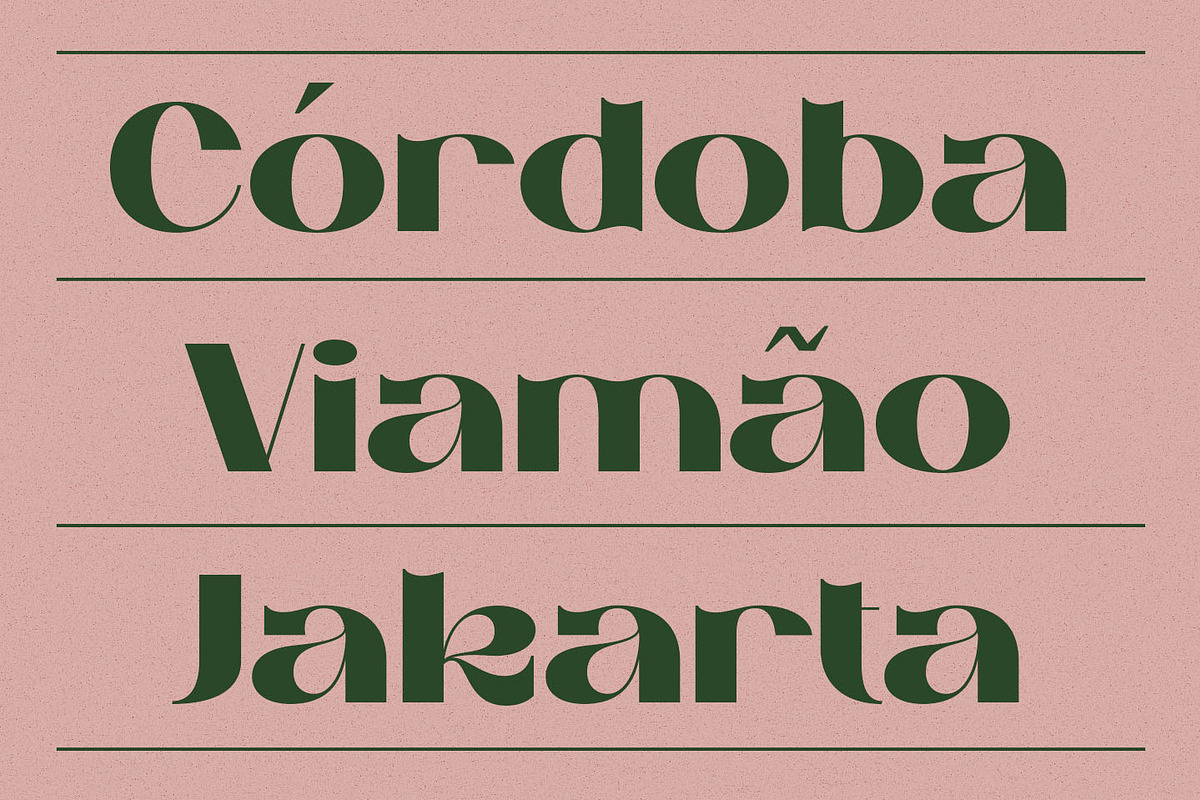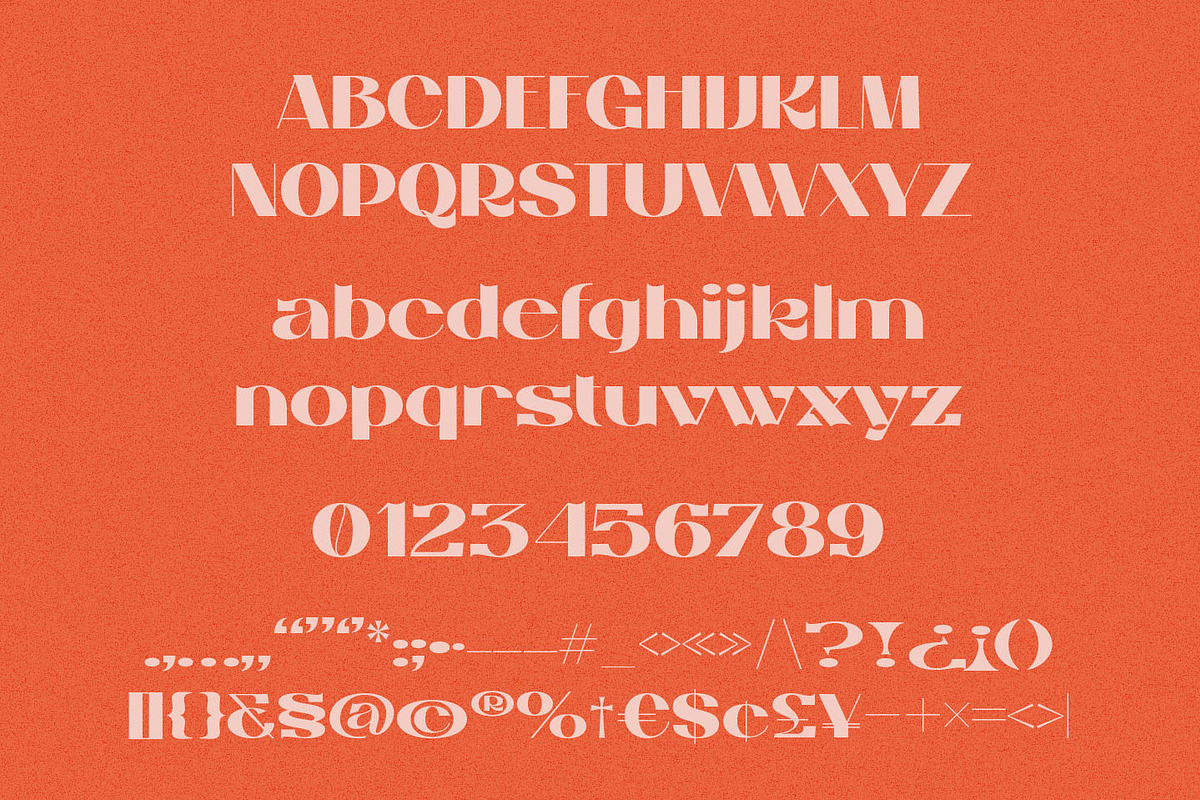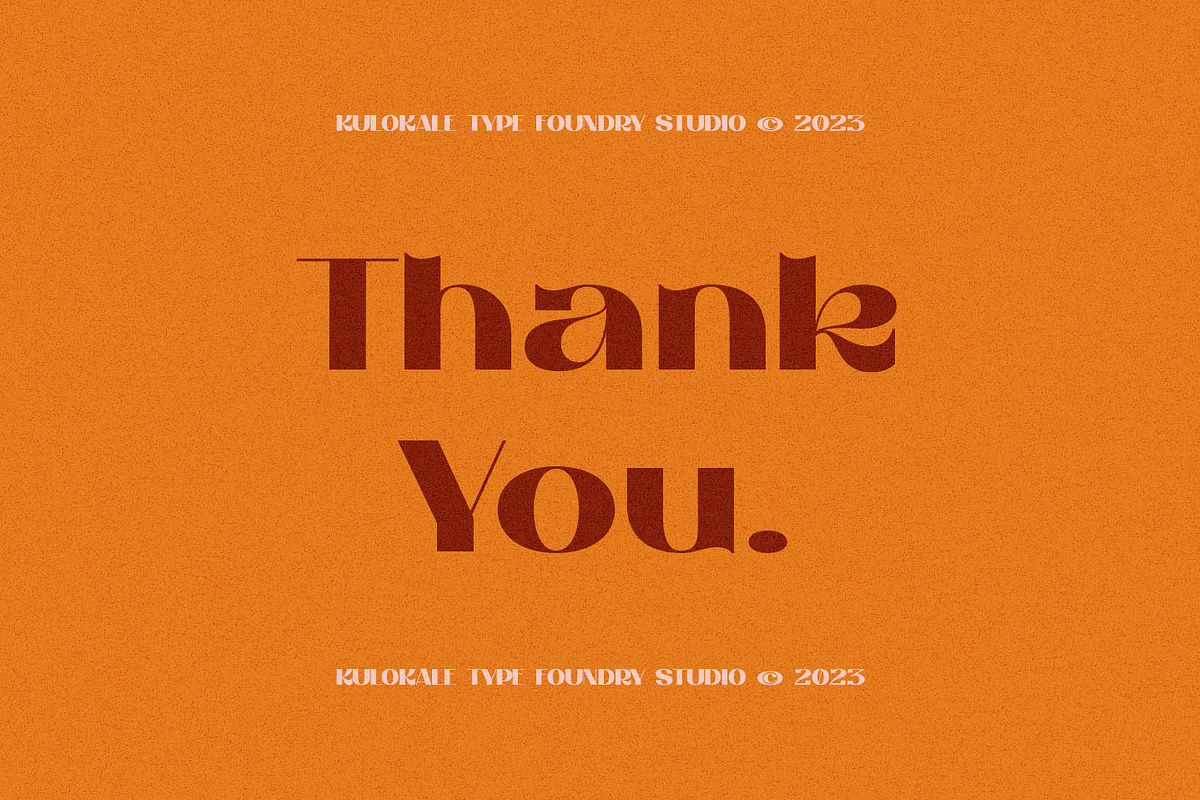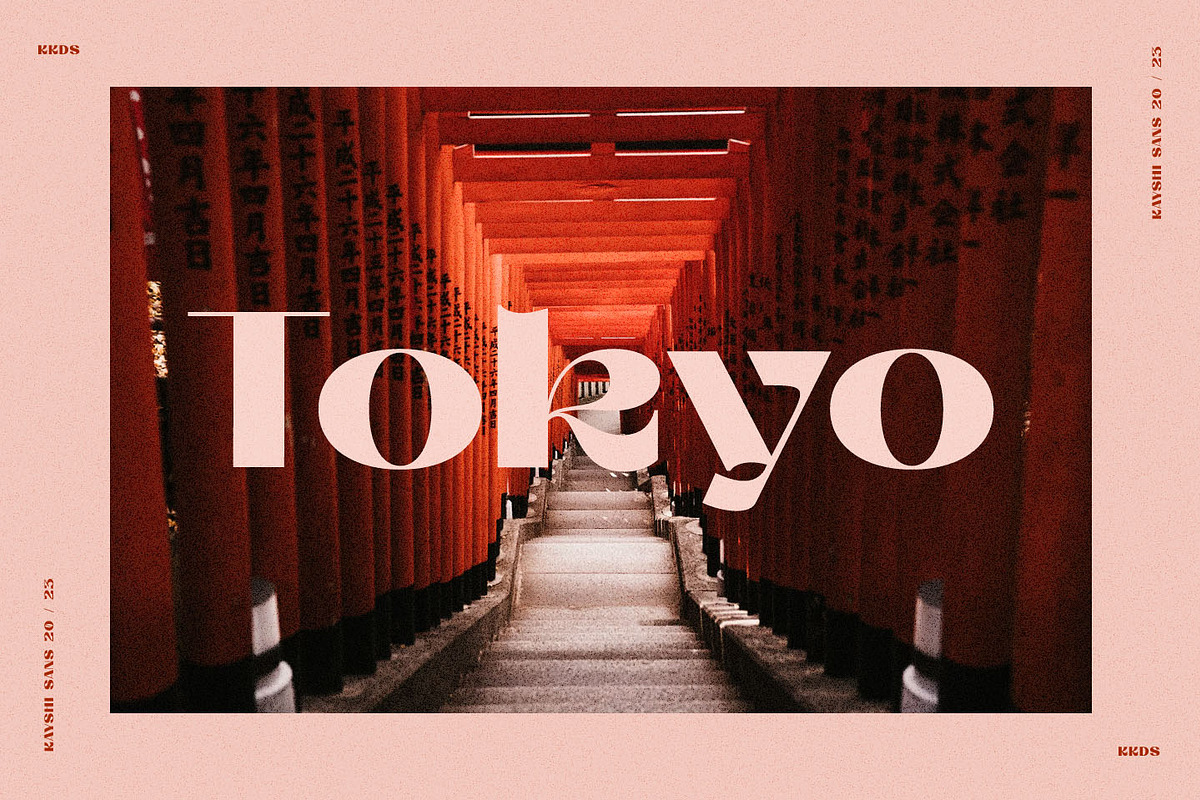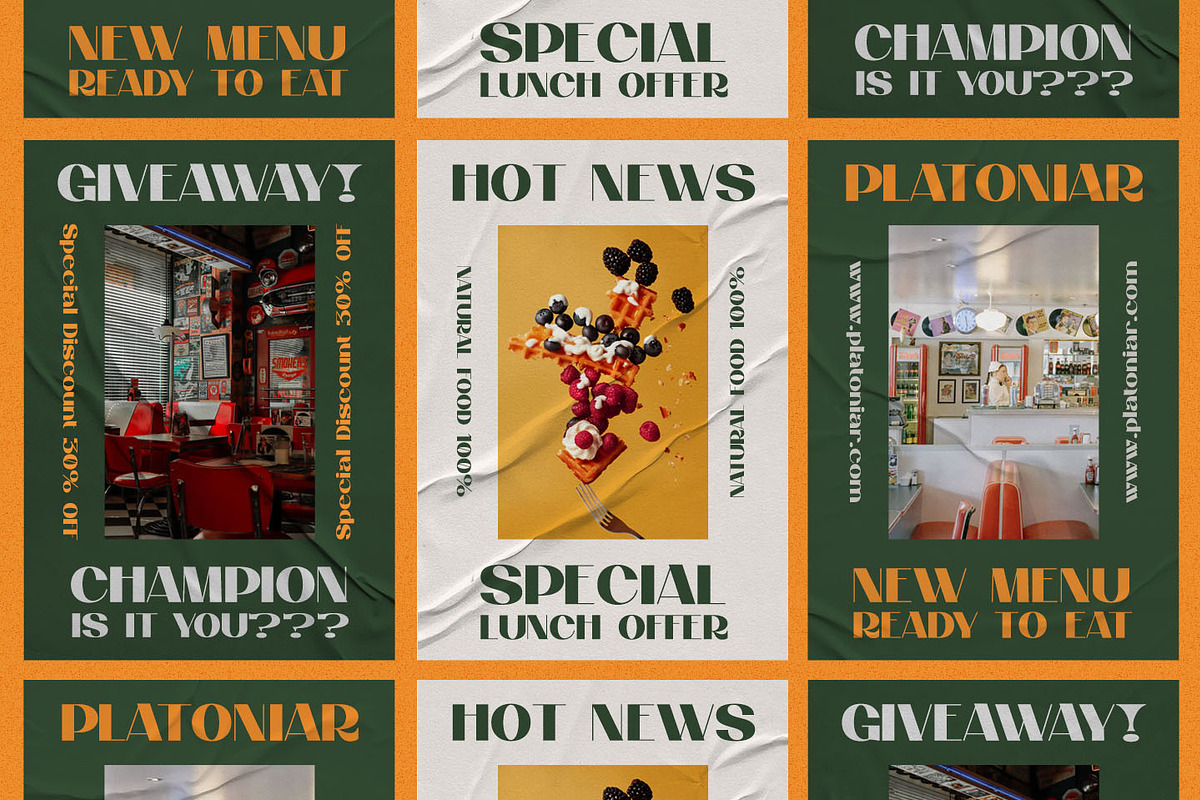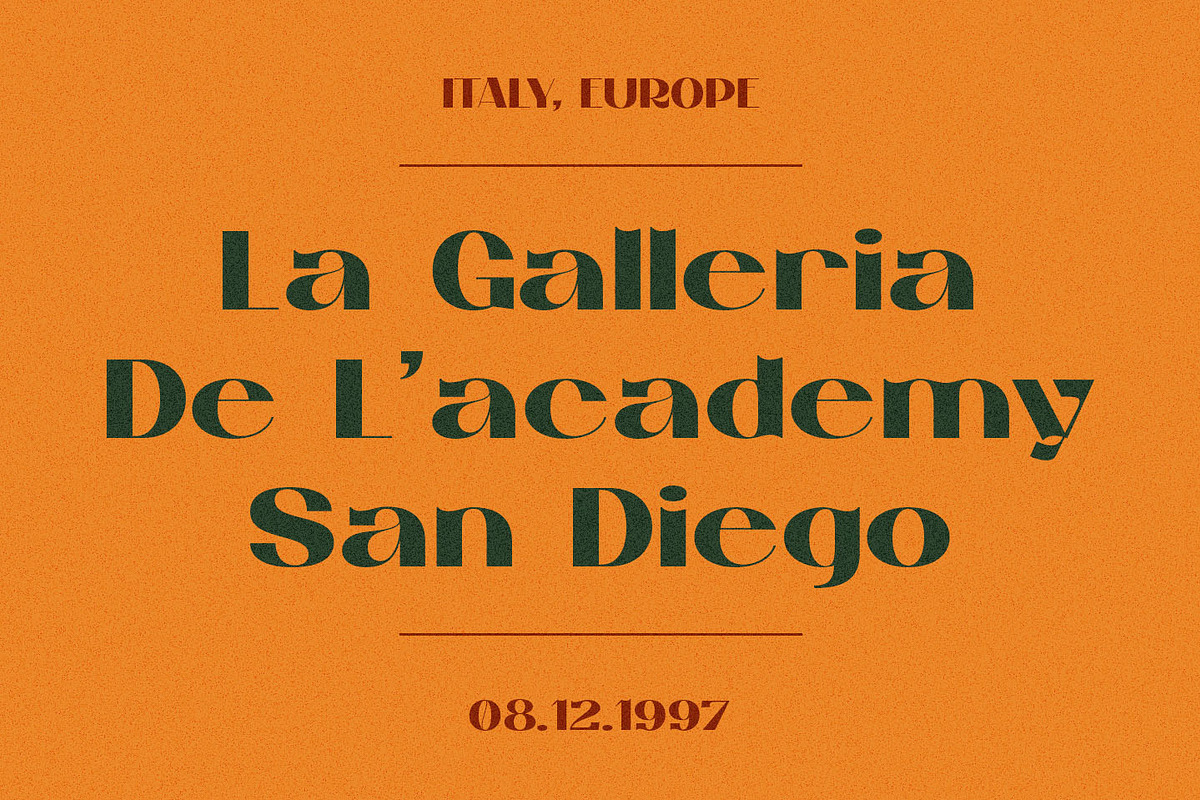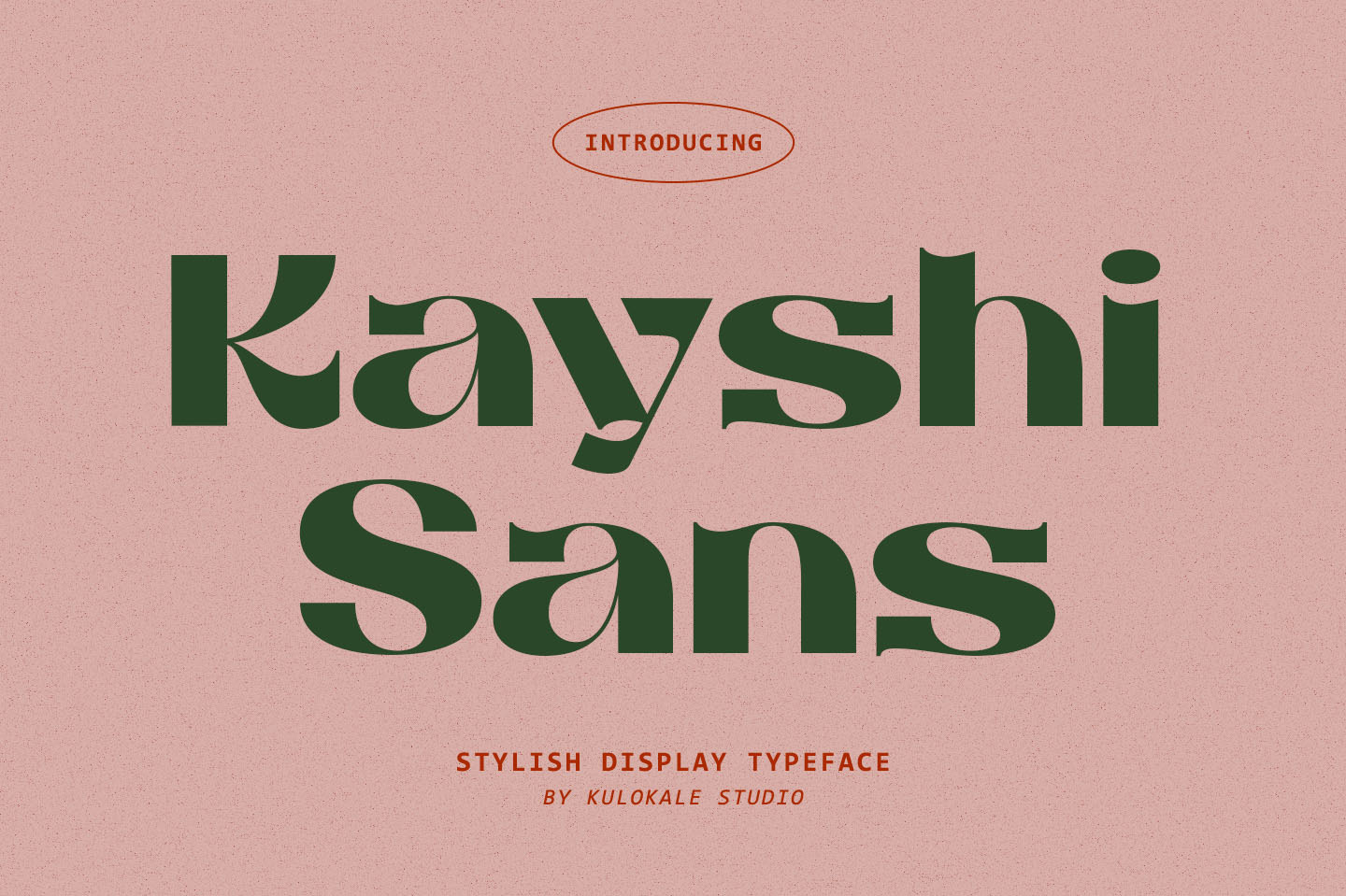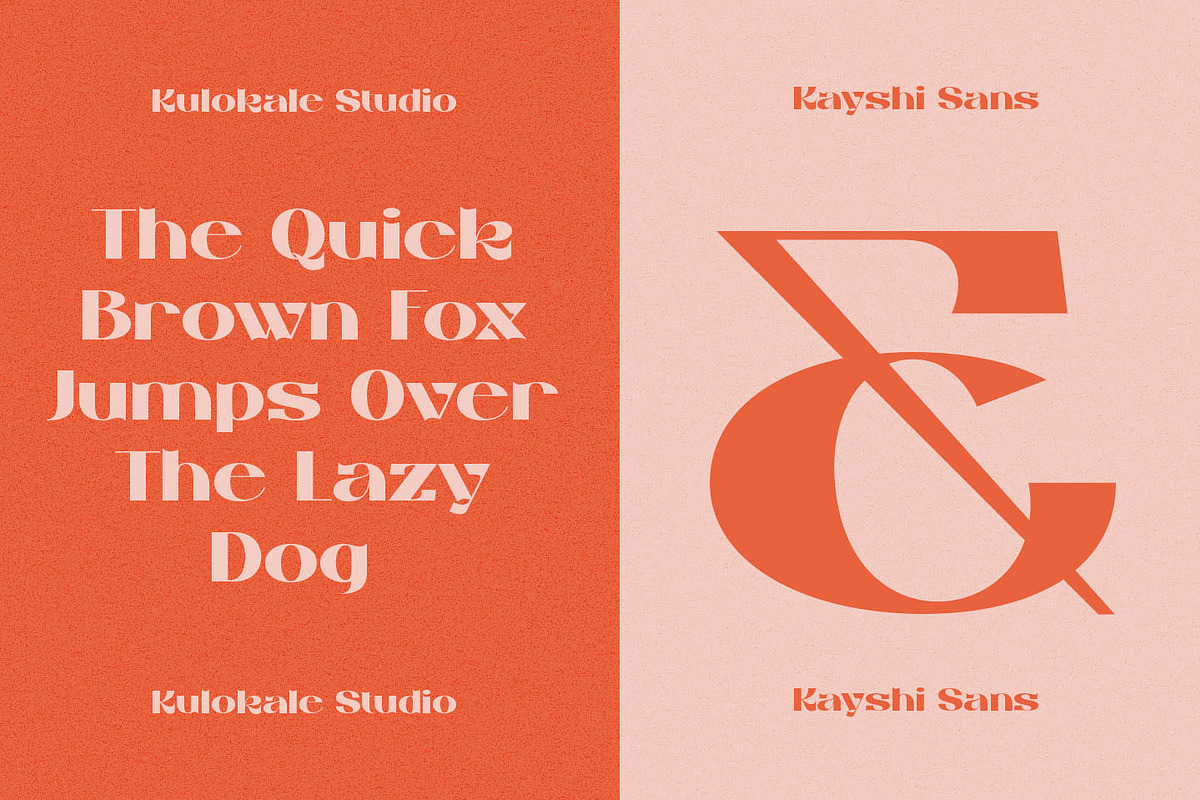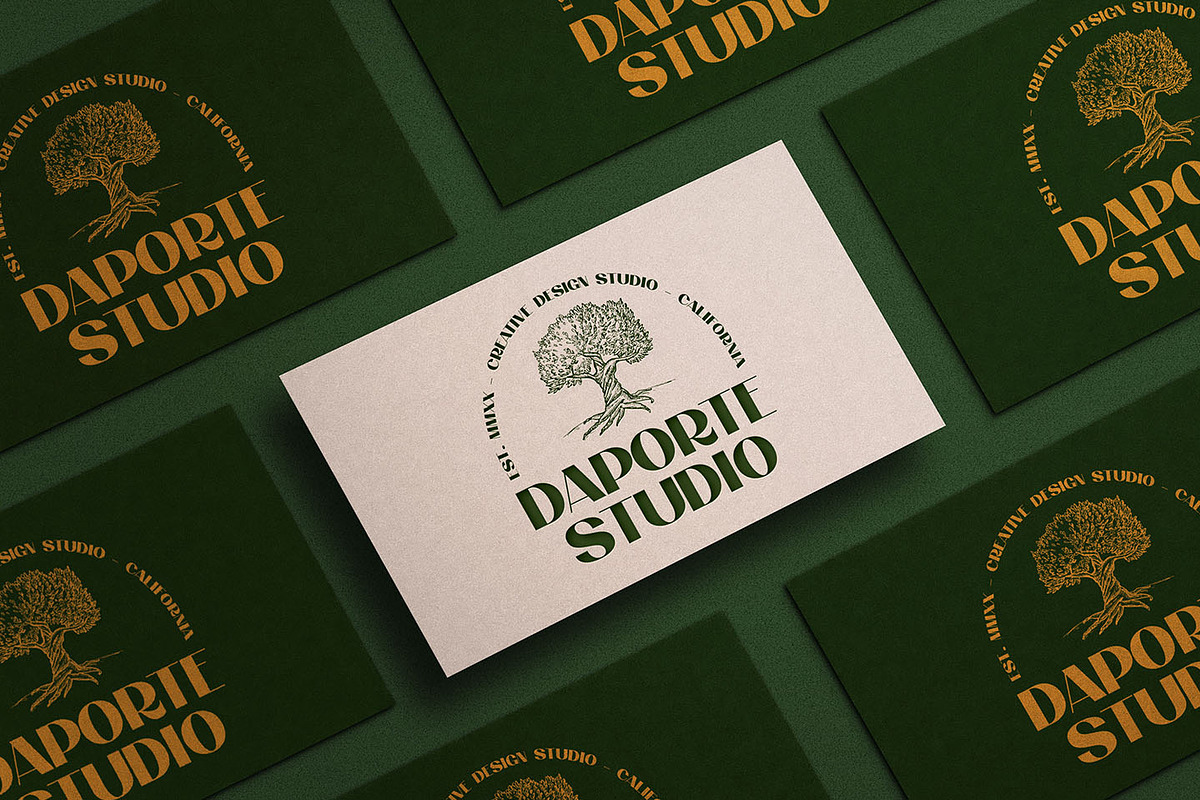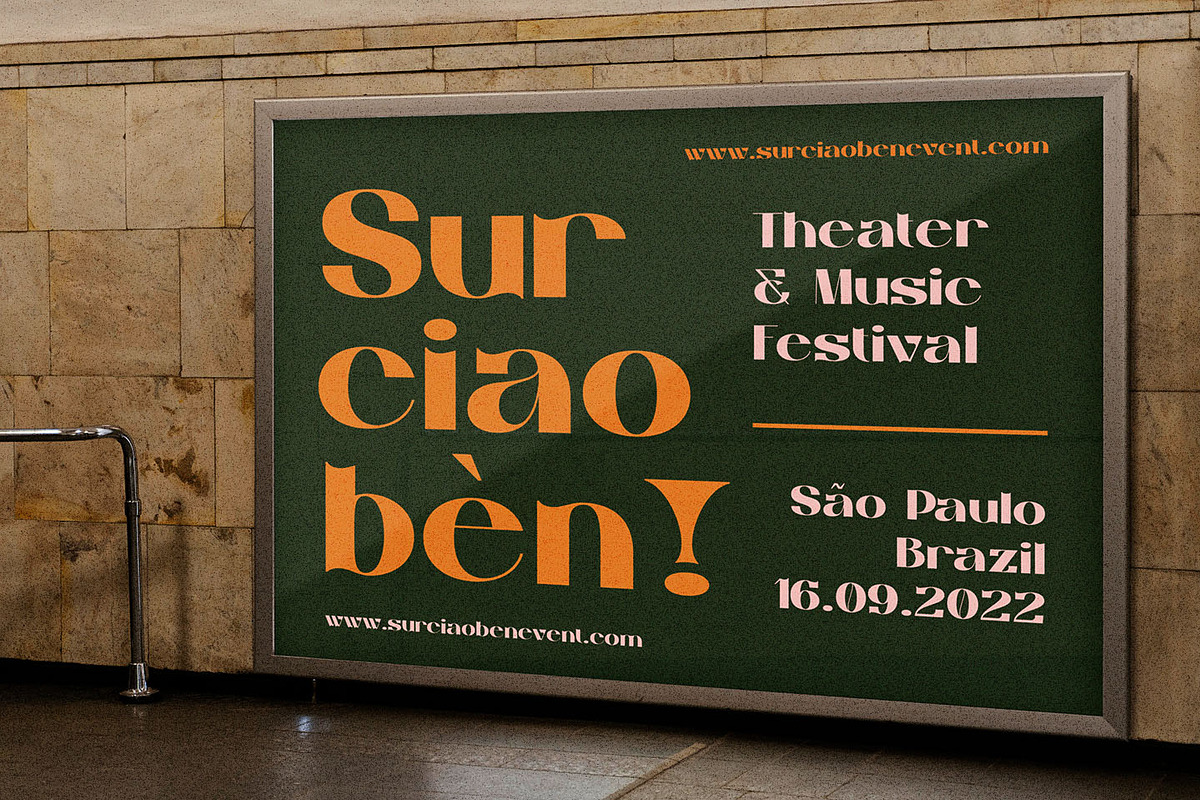
Kayshi Sans Stylish Display Font
Kayshi Sans is a vintage display sans font. Kayshi Sans is well-suited for advertising, branding, logotypes, packaging, titles, headlines and editorial design. This font comes in two styles, Regular and Oblique Version.